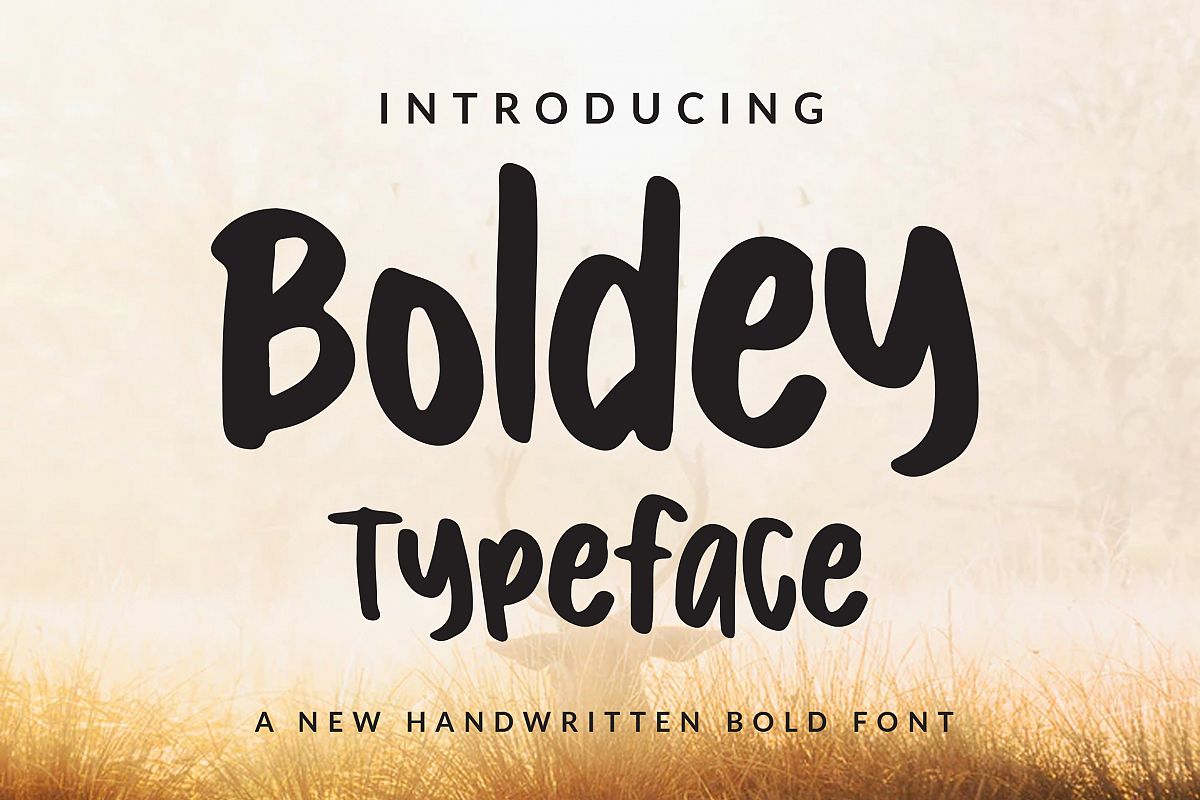
Boldey Typeace - A New Handwritten Bold Font
Boldey
**★★ — Queentype Introducing : Boldey Typeace — ★★**
Boldey Typeace - A New Handwritten Bold Font
Great for Apparel Brand, Logos, printed quotes, invitations, image overlays, greeting cards, product packaging, text headers, any greeting cards, book cover, Painting design style, or any design that needs natural and personal touch & whatever else your imagination holds! Mix and match the alternate characters to add an attractive message to your design.